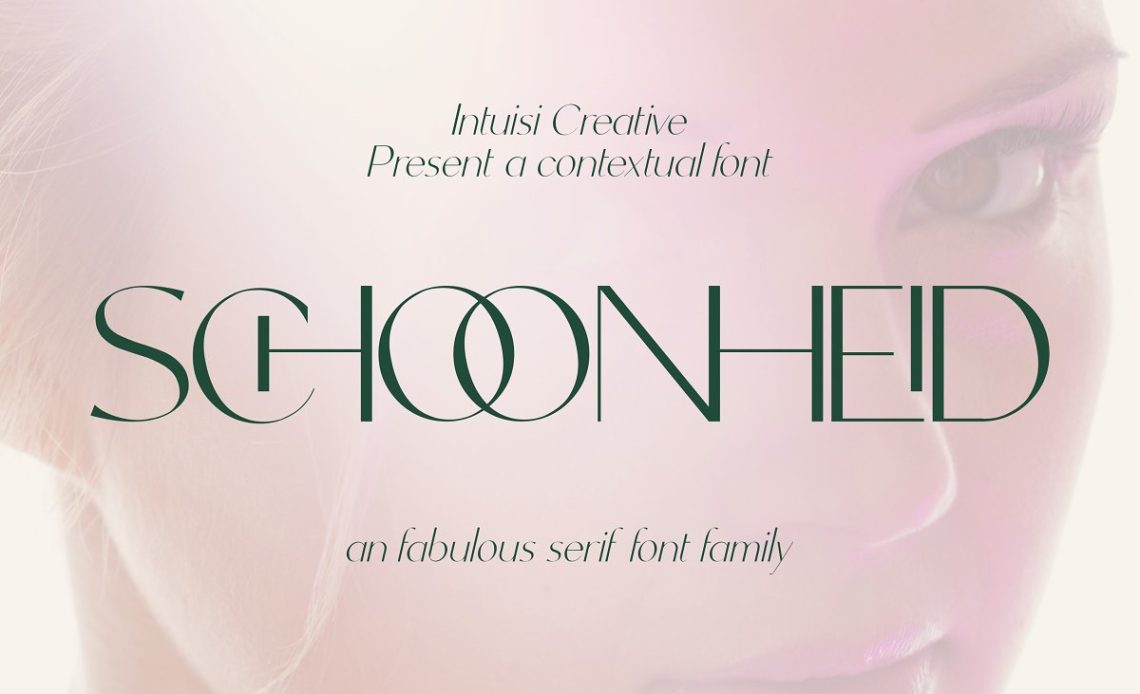
Introducing Schoonheid - Thick and Thin Font, a captivating and mesmerizing addition to your font collection. Created by Intuisi Creative, this font is sure to elevate your design projects to new heights.
Drawing inspiration from the thick and thin Gothic typeface that was popular in the US during the first half of the 20th century, Schoonheid is a true embodiment of timeless elegance and sophistication.
What sets Schoonheid apart is its ability to seamlessly adapt to any design concept. With its extensive collection of more than 100 ligatures, alternatives, and special characters consisting of uppercase letters, you have the freedom to create truly unique and eye-catching typography.
But what makes Schoonheid truly remarkable is its innovative use of OpenType magic and PUA coding. Gone are the days of manually changing glyphs and spending countless hours perfecting your design. With Schoonheid, all you need to do is type something, and watch as the font magically transforms to your desired look. It's like having a personal design assistant at your fingertips!
Whether you're a professional designer or a creative enthusiast, Schoonheid is the perfect companion for all your design needs. Its versatility allows it to effortlessly enhance a wide range of projects, including logos, branding materials, invitations, social media graphics, and so much more.
Say goodbye to boring and predictable fonts and embrace the beauty and charm of Schoonheid. Let your imagination run wild and watch as your designs come to life with this captivating font.